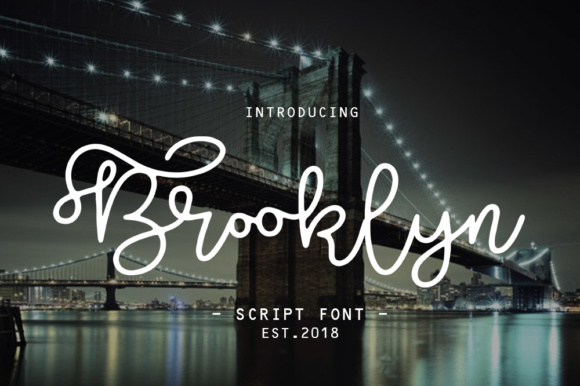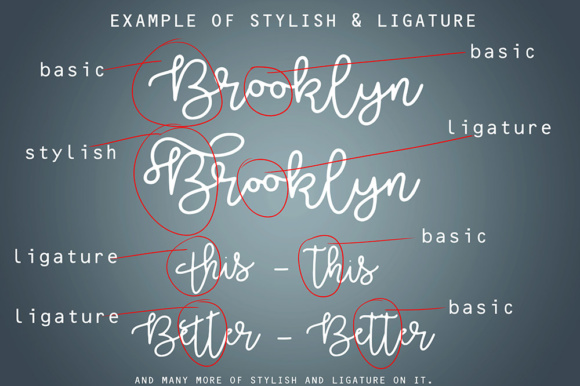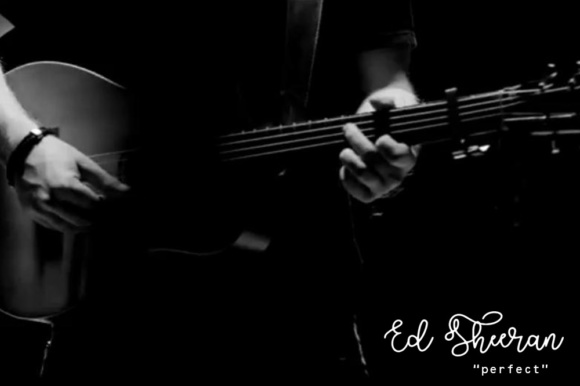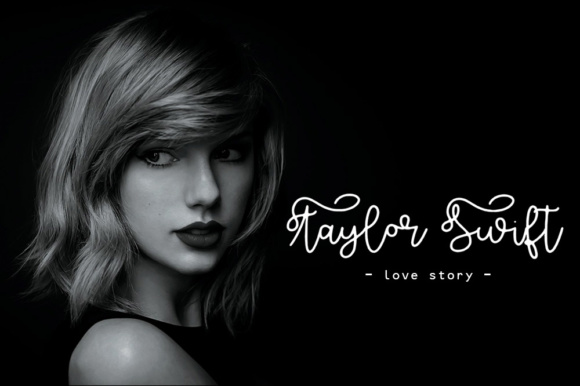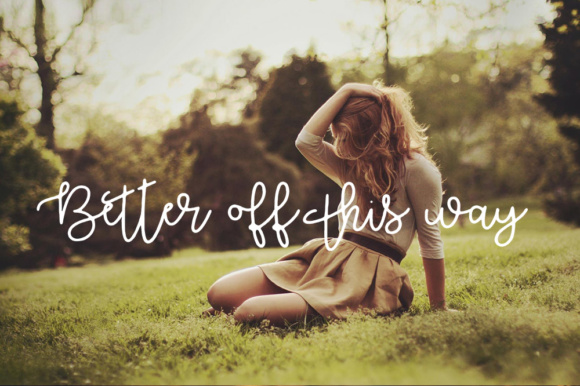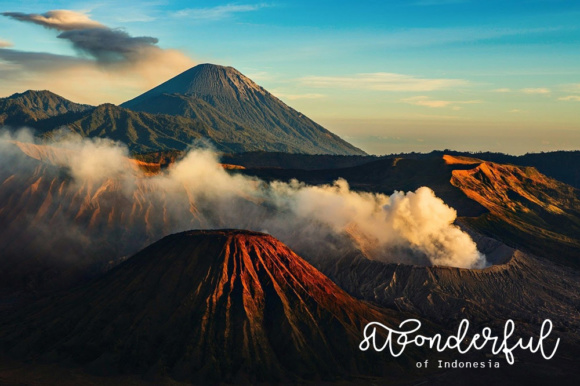
Brooklyn Script Font
About Brooklyn Script Font
Brooklyn is a feminine script font. With it’s curly swashes, you are guaranteed to add a sporty look to your design in seconds.